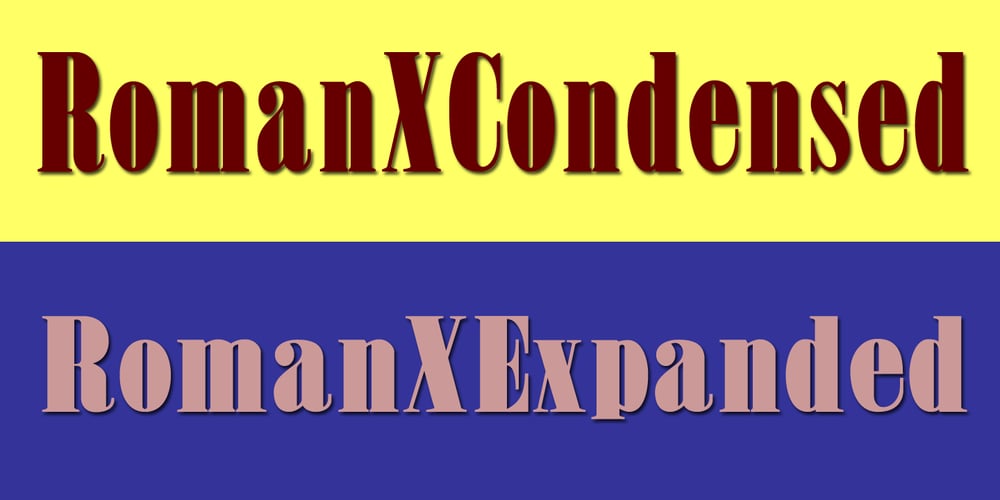
Roman X Font Family was designed by Jordan Davies and published by Wooden Type Fonts. Roman X contains 2 styles and family package options. One of the first and best of the Roman styles, this a condensed, narrow version, with very short descenders.